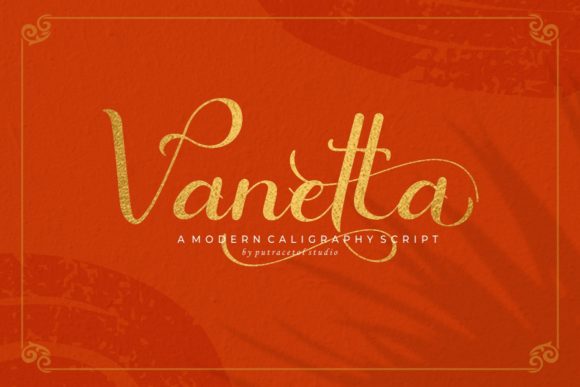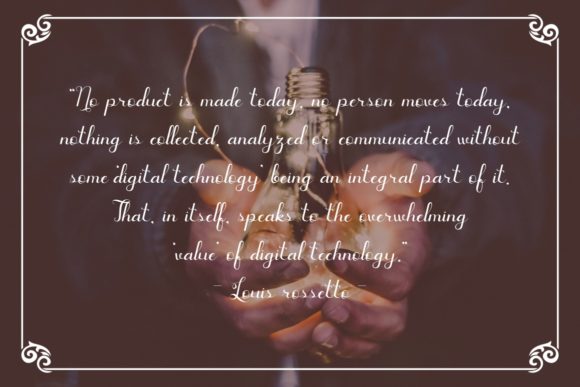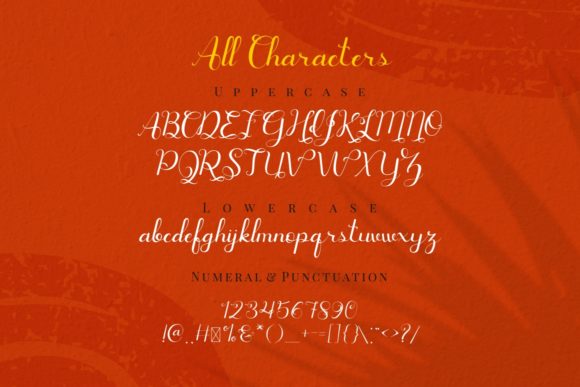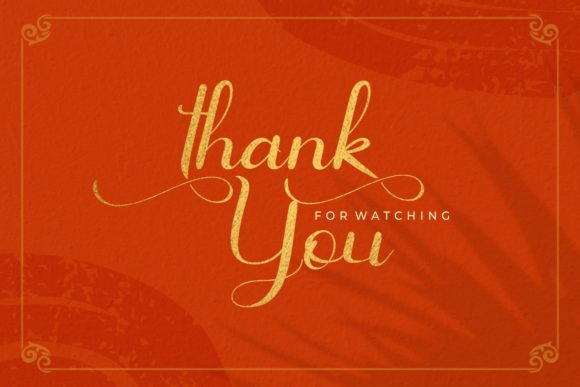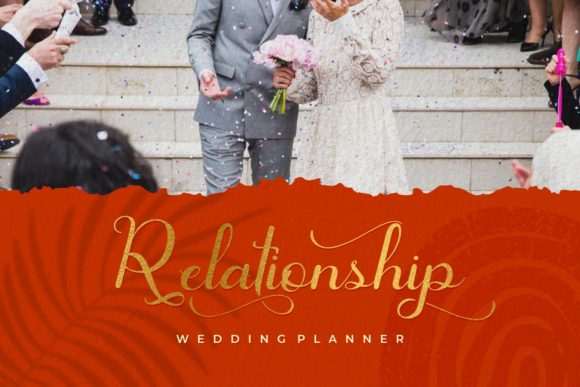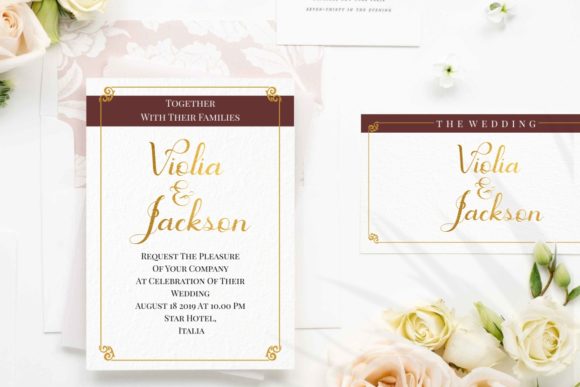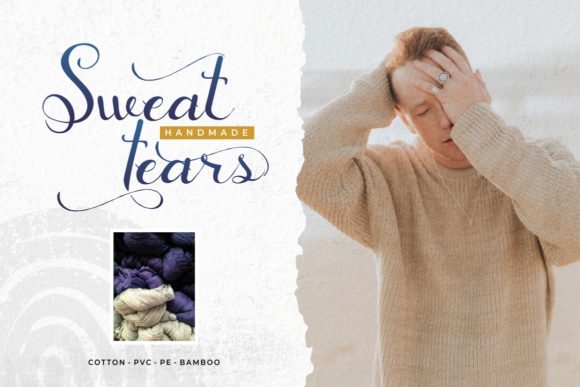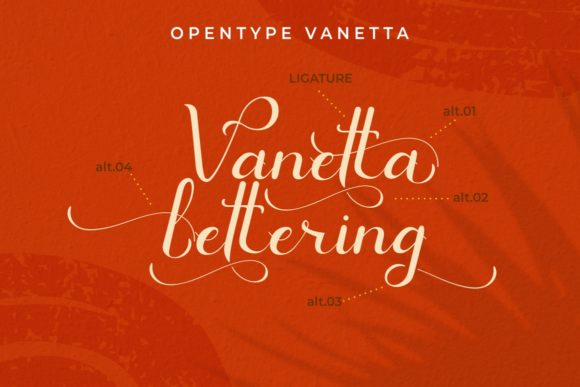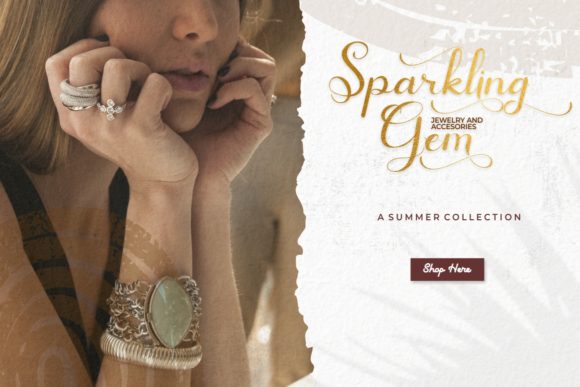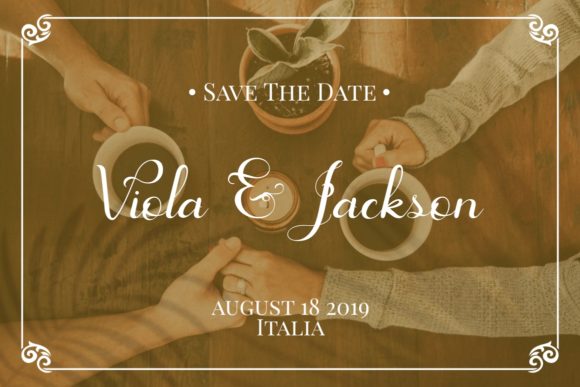
Vanetta Font
About Vanetta Font
Vanetta elegantly pays homage to classic calligraphy with its sweet swashes. It will take any design idea to the next level.